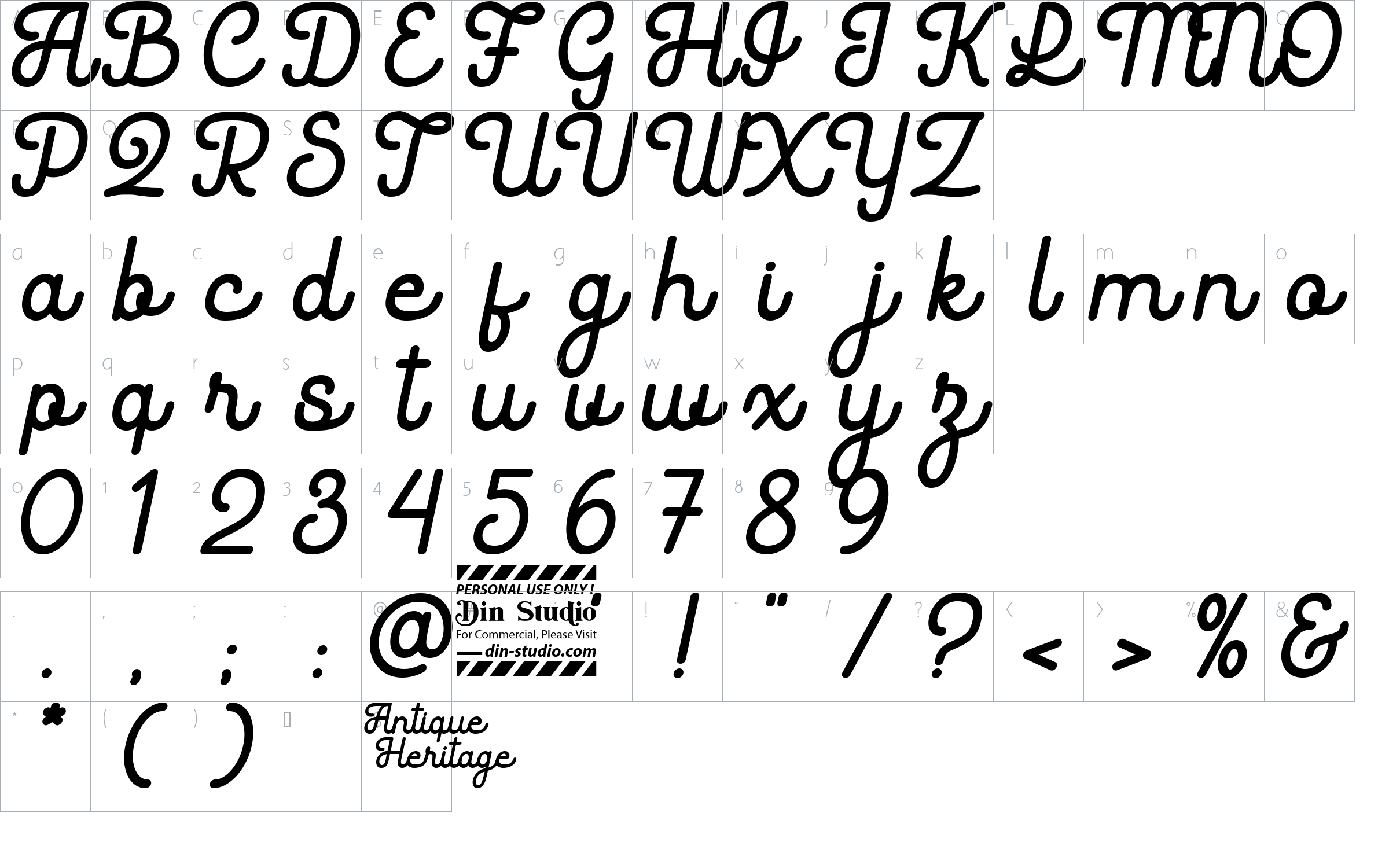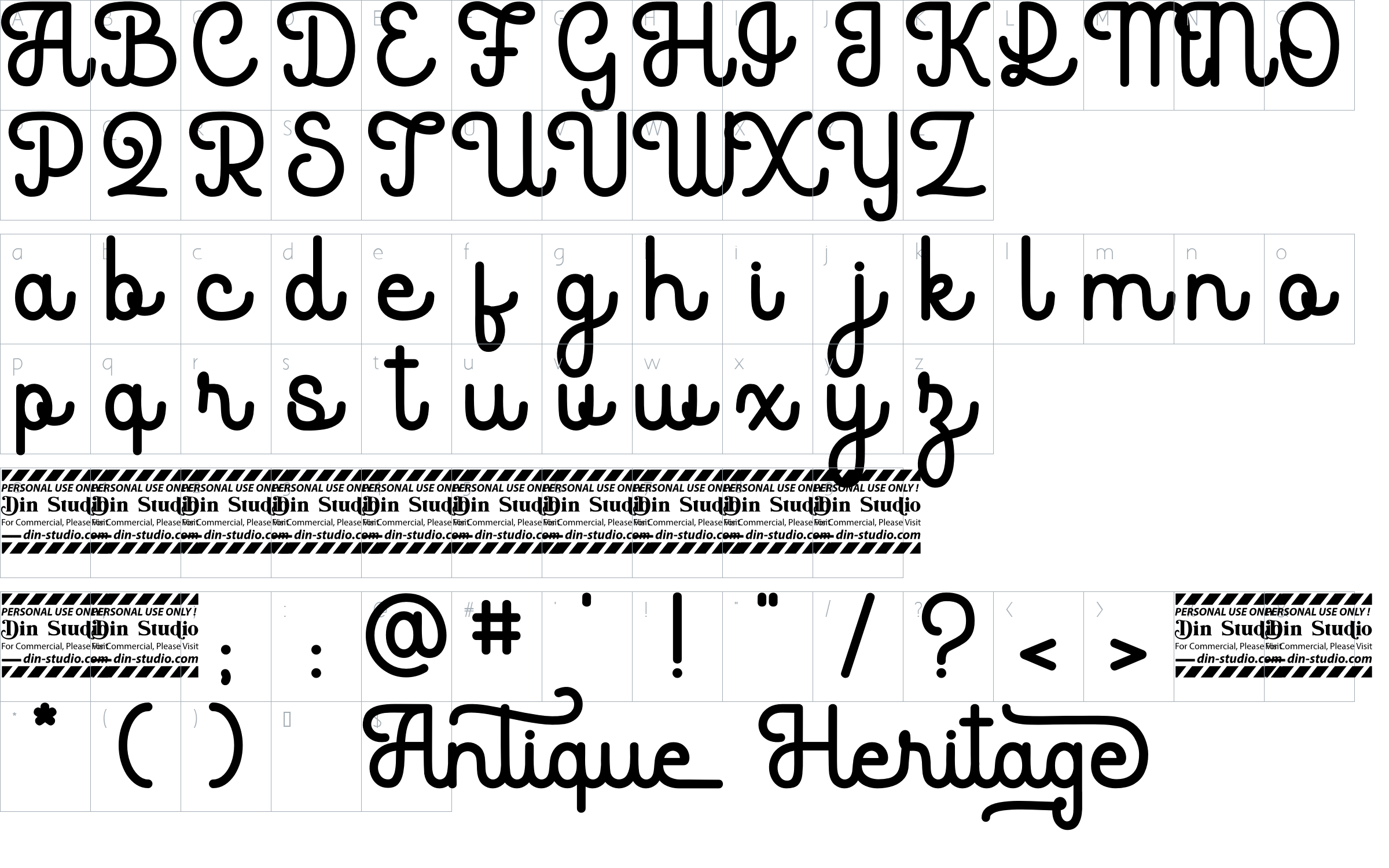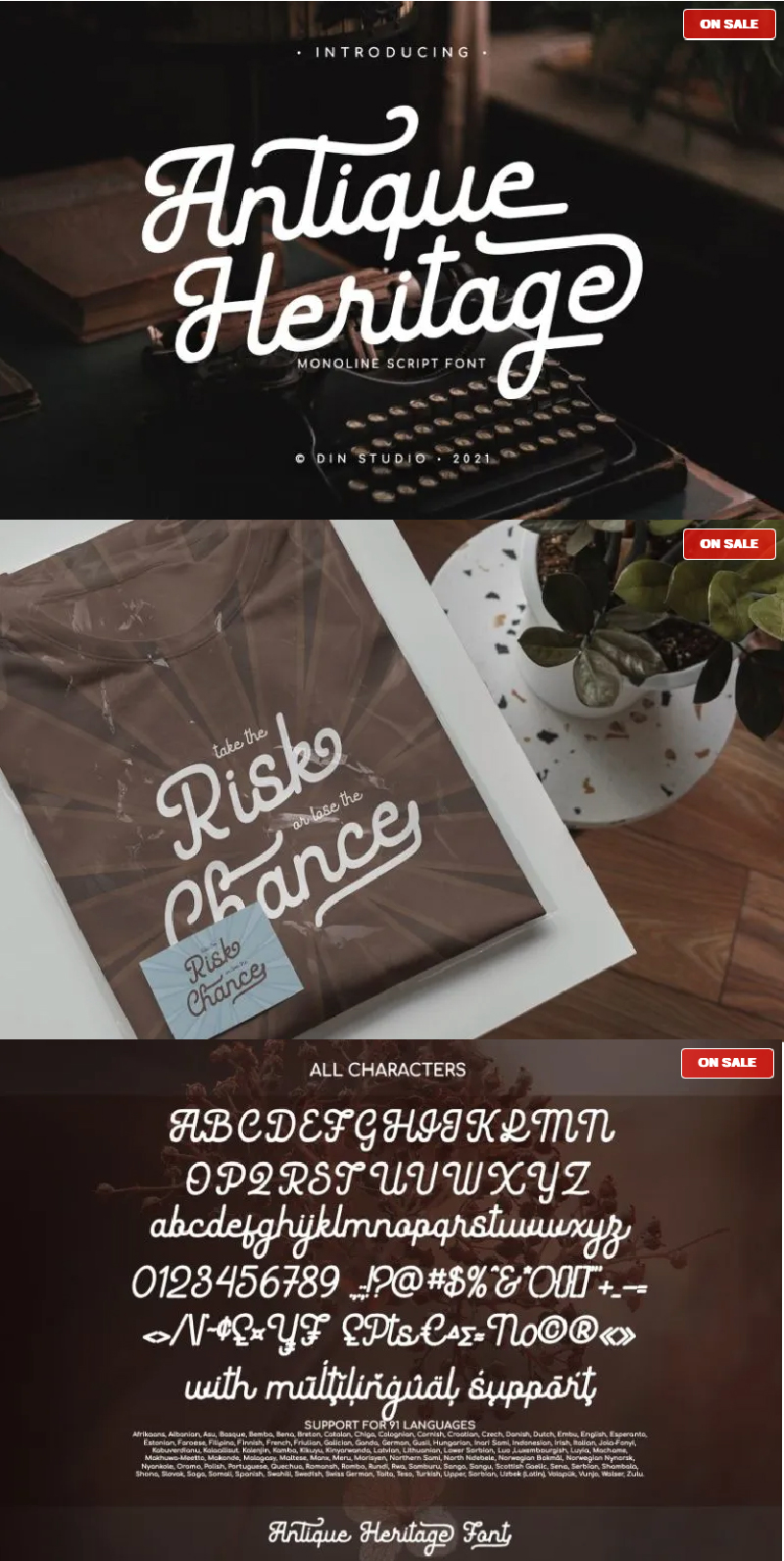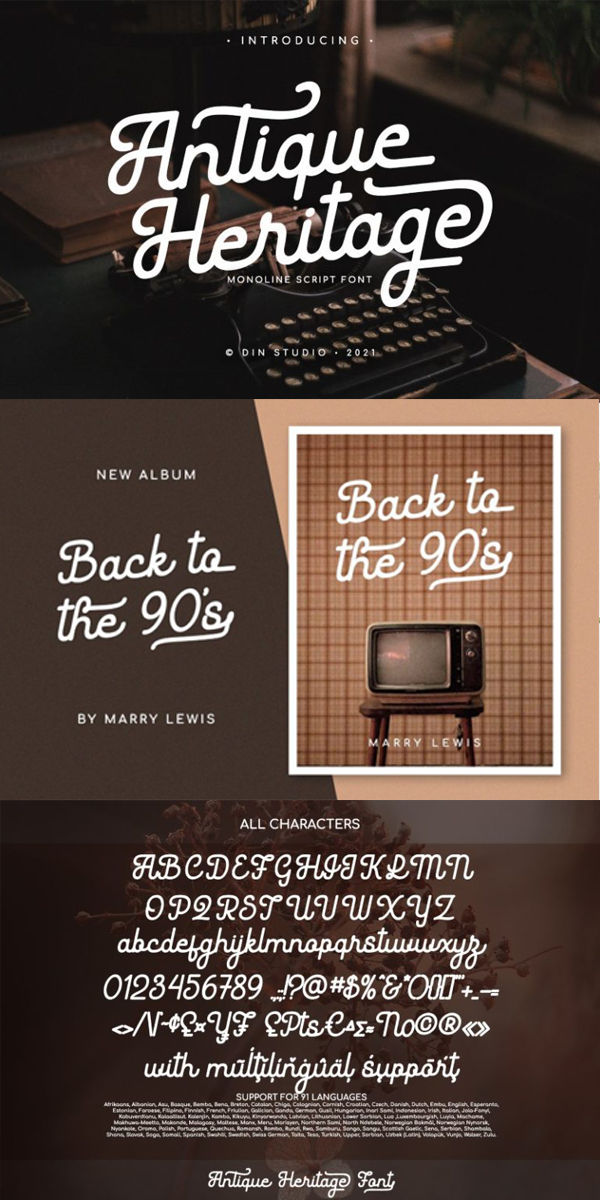
Antique Heritage Font
About Antique Heritage
Dreaming to make remarkable projects? Wanna lead your audiences to an aged world? This is the path that you are looking for. Introducing Antique Heritage – A Monoline Script Font.
This font is best to add antiques to your projects that have vintage styles. The shapes can help bring to a fine new level and increase a real sense of timelessness. Use it for headings, logos, business cards, printed quotes, invitations of all sorts, cards, packaging, and your website or social media brandings.
-Standard Ligatures
-Multilingual Support (91 languages)